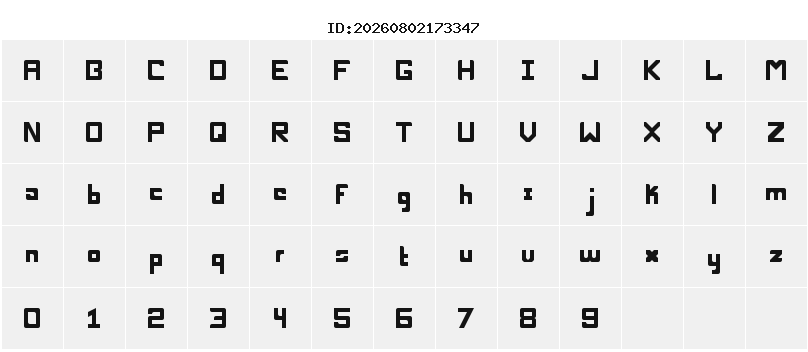
Nucleo MD Preview
• Font Name: Nucleo MD
• Designer: Marcio Duarte
• Description: Nucleo v.1 was built with FontStruct
About Nucleo MD.ttf
Nucleo MD.ttf is a modern, elegant sans-serif font designed for ultimate readability and visual harmony. Perfect for branding, headlines, web design, and print materials.